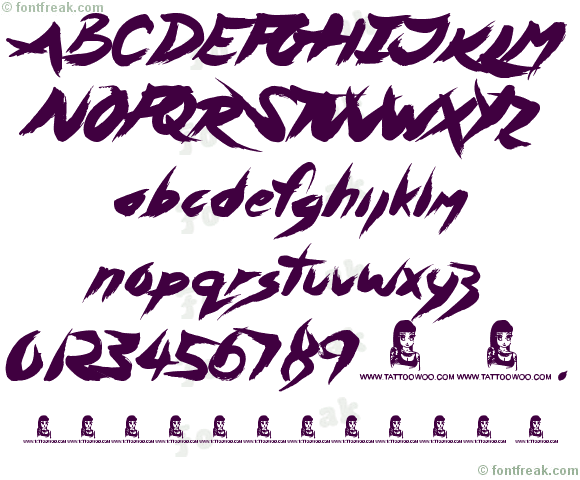
Asylum Mansion
About Asylum Mansion
Asylum Mansion is a striking display font designed by Jonathan S. Harris, characterized by its bold and expressive style. This decorative typeface features sharp, angular strokes that create an intense visual impact, making it ideal for projects that require attention-grabbing typography. The font showcases a high contrast between thick and thin lines, adding a dynamic feel to its overall design. Its unique letterforms are adorned with elongated serifs and dramatic swashes, contributing to a sense of movement and creativity.
The Asylum Mansion font is particularly well-suited for a variety of applications. It excels in creating captivating movie posters, where its dramatic flair can evoke emotion and intrigue. Additionally, it can enhance the visual appeal of restaurant menus, particularly for establishments looking to convey a quirky or artistic vibe. The font also works wonderfully for event promotions, such as music festivals or art shows, where it can help convey a sense of excitement and energy. Graphic designers, small business owners, and content creators will find this typeface a valuable asset in their toolkit.